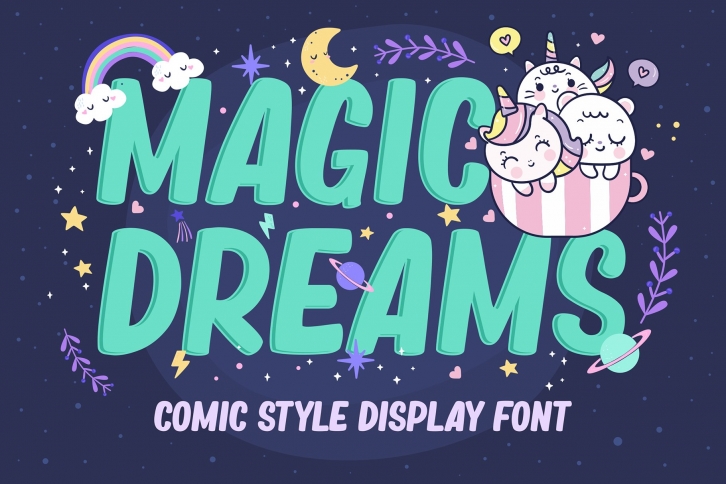
Magic Dreams is a great font that was designed by figuree. Imagine the amount of combinations you can create using this font! The archive is 1.18 MB and it was released on April 2, 2020. Magic Dreams looks beautiful on wedding invitations, greeting cards, logos, posters, labels, t-shirt designs, logos, business cards and is perfect for use in ink or watercolor works, fashion, magazines, packaging and food menus, children's books and more!